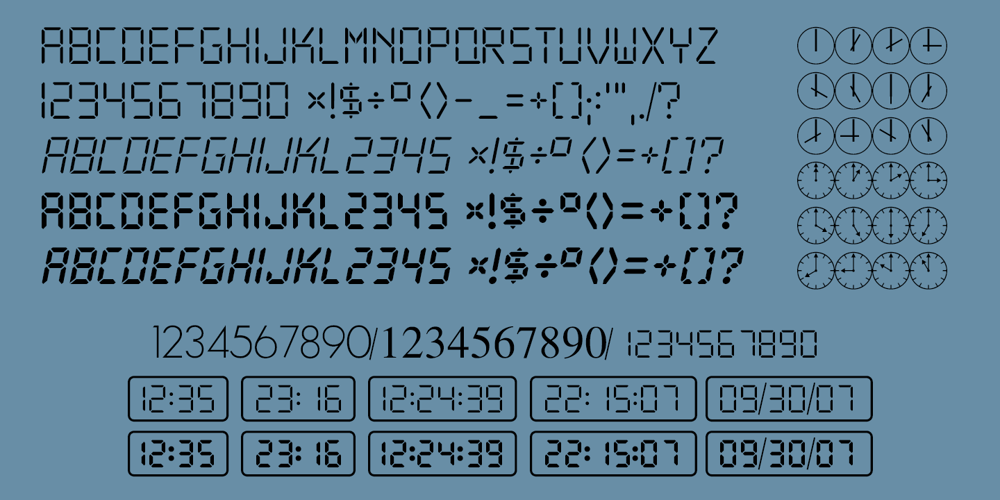
PIXymbols Digit & Clocks
PIXymbols Digit & Clocks font
PIXymbols Digit & Clocks Font Family was designed by Roger Vershen and published by Page Studio Graphics. PIXymbols Digit & Clocks contains 6 styles and family package options. Set of five fonts (Digit, bold, italic, and bold italic, plus Clocks), generates digital LED style characters, and digital clock and calendar faces. Plus 24 analog clock faces.